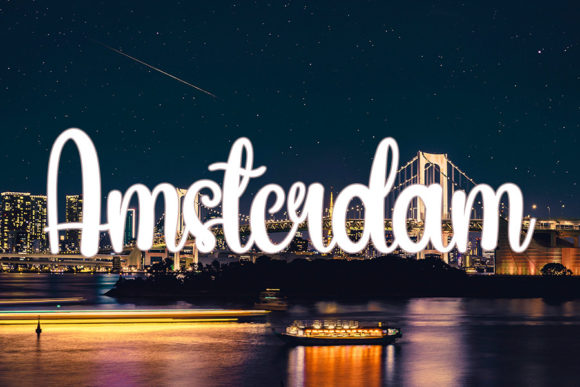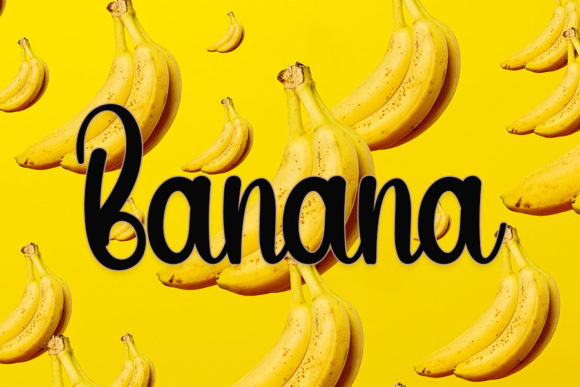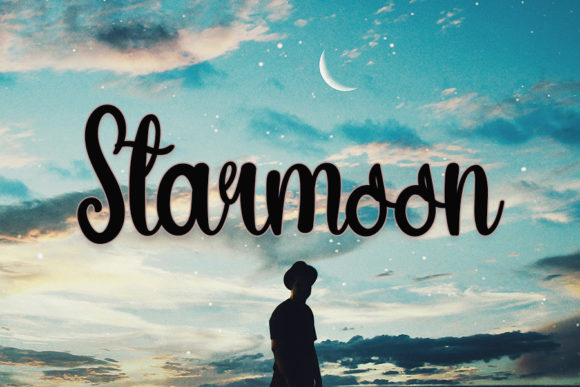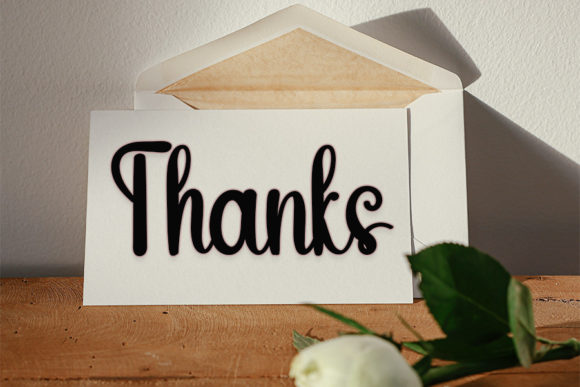
The Amature Font: A Friendly Handwritten Companion for Designers
I still remember the moment I stumbled upon the Amature font while working on a project for a client who wanted a friendly, handwritten look. I had been searching for what felt like hours, trying out font after font, but nothing seemed quite right. That was until I saw Amature – its elegant, flowing lines immediately caught my eye, and I knew I had found the perfect fit. In this article, I’ll share my experience with Amature, what I love about it, its quirks, and how to make the most of its features across various design platforms.
An Honest Review of Amature Font
What I Love About Amature ✨
- ✅ Elegant yet approachable: Amature strikes a perfect balance between classy calligraphic influences and a contemporary feel.
- ✅ Highly versatile: Suitable for a wide range of projects, from wedding invitations to blog headers, and even branding.
- ✅ Easy on the eyes: The font is clean and readable, even at smaller sizes.
- ✅ OpenType features: Amature comes with a range of ligatures, stylistic alternates, and glyphs that can elevate your designs.
- ⚠️ Limited use in very formal projects: While Amature is elegant, it might not fit very formal or corporate projects due to its friendly nature.
- ⚠️ Requires some exploration: With its range of OpenType features, it might take some time to get familiar with all that Amature has to offer.
The Story Behind Amature
Amature was crafted with the goal of creating a font that feels both personal and sophisticated. The designer aimed to capture the elegance of traditional calligraphy while infusing it with a modern, friendly twist. The result is a font that feels approachable yet refined, suitable for a wide range of creative projects.
Q: Is Amature suitable for body text?
A: While Amature is highly readable, it’s primarily designed for headings and titles. For longer body text, you might consider a font with more traditional readability features.